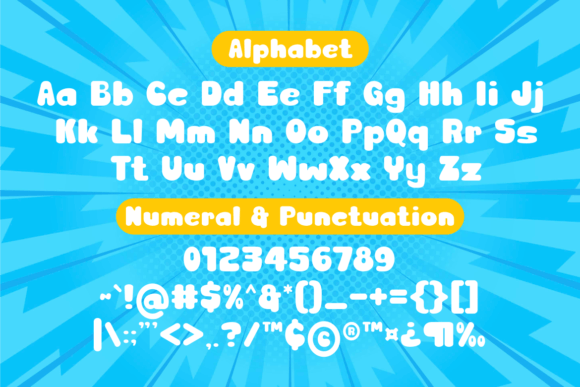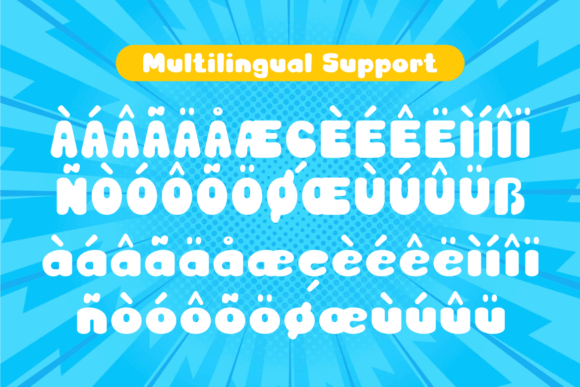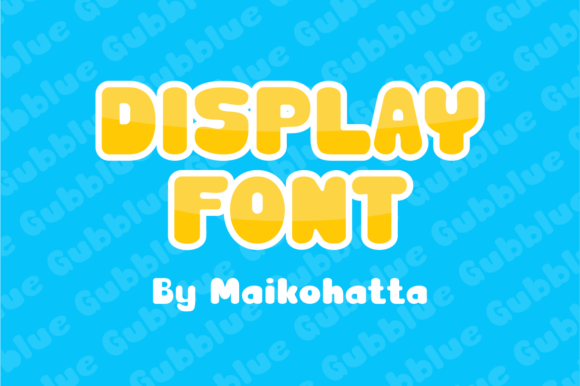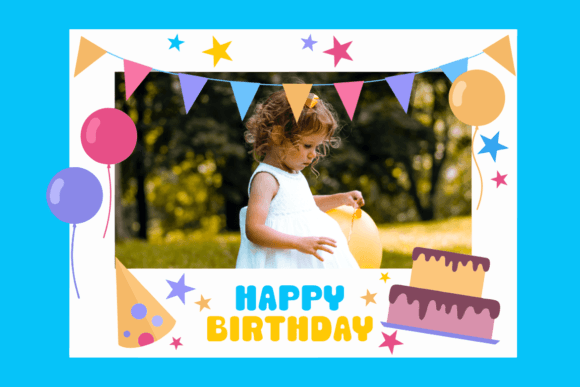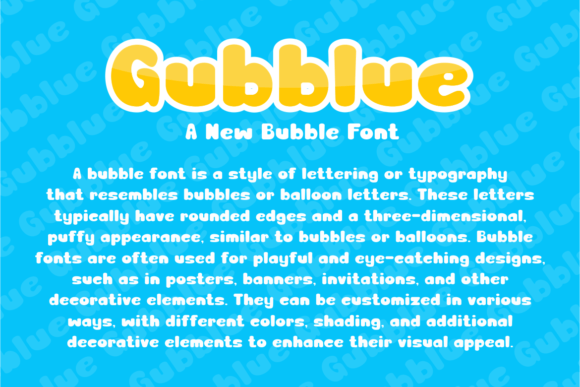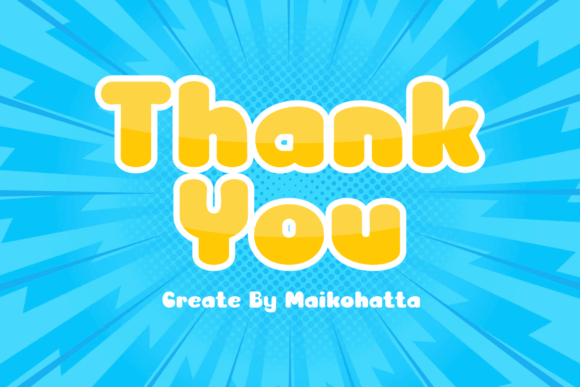
Gubblue Font: The Perfect Choice for Playful and Youthful Designs
In the world of typography, fonts play a crucial role in conveying the tone and personality of a design. Among the numerous fonts available, Gubblue Font stands out for its unique and captivating features. This font has round and wide letter shapes with curved corners, giving a soft and friendly impression. Because of this, this font is often chosen for designs aimed at children or those with a playful nature, as it conveys a more youthful and cheerful feel.
Characteristics of Gubblue Font
Gubblue Font is distinguished by its round and wide letter shapes, which are further accentuated by curved corners. This design element contributes to its soft and friendly appearance, making it an excellent choice for designs that target a younger audience or aim to evoke a playful vibe. The font’s unique characteristics can be summarized as follows:
- Round and wide letter shapes: The font features letters that are rounded and wide, contributing to its friendly and approachable look.
- Curved corners: The curved corners of the letters enhance the font’s softness and playfulness.
- Soft and friendly impression: The overall design of Gubblue Font creates a soft and friendly impression, making it suitable for designs that require a gentle touch.
Use Cases for Gubblue Font
Given its distinctive features, Gubblue Font is particularly well-suited for specific design projects. Some of the ideal use cases for this font include:
- Children’s products and services: The font’s playful and youthful feel makes it an excellent choice for designs aimed at children, such as children’s books, educational materials, and kid-friendly apps.
- Playful and creative projects: Gubblue Font’s unique characteristics make it a great fit for designs that require a playful and creative touch, such as posters, flyers, and social media graphics.
- Branding and logos: The font’s friendly and approachable appearance makes it suitable for branding and logo designs that aim to convey a sense of warmth and approachability.
Benefits of Using Gubblue Font
Using Gubblue Font in design projects offers several benefits, including:
- Enhanced visual appeal: The font’s unique design elements make it visually appealing and attention-grabbing.
- Improved readability: The round and wide letter shapes, combined with curved corners, contribute to excellent readability, even at smaller font sizes.
- Emotional connection: The font’s soft and friendly impression helps create an emotional connection with the target audience, particularly children and young adults.
Tips for Using Gubblue Font Effectively
To maximize the impact of Gubblue Font in design projects, consider the following tips:
- Pair with complementary fonts: Combine Gubblue Font with fonts that complement its playful and youthful feel to create visually appealing typography.
- Use contrasting colors: Use contrasting colors to make the text stand out and enhance readability.
- Experiment with font sizes: Experiment with different font sizes to create visual hierarchy and emphasize important information.
Gubblue Font is a unique and captivating font that offers a soft and friendly impression, making it an excellent choice for designs aimed at children or those with a playful nature. Its round and wide letter shapes, curved corners, and youthful feel make it a great fit for various design projects, including children’s products, playful designs, and branding. By understanding the characteristics, use cases, and benefits of Gubblue Font, designers and crafters can effectively incorporate this font into their projects and create visually appealing and engaging designs.